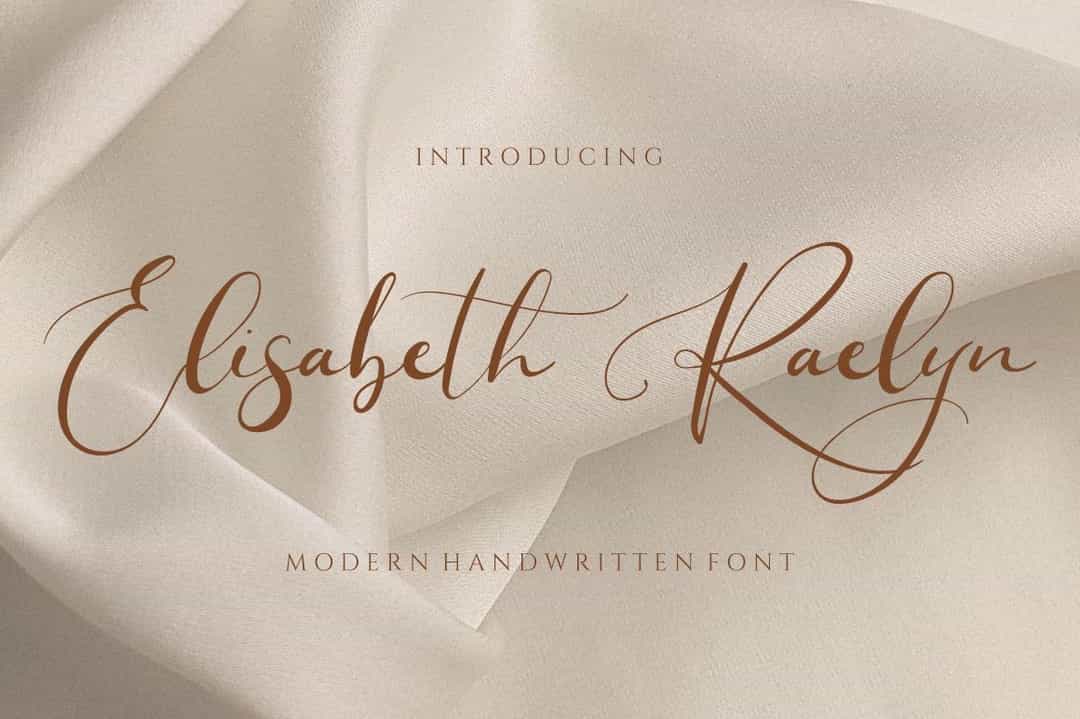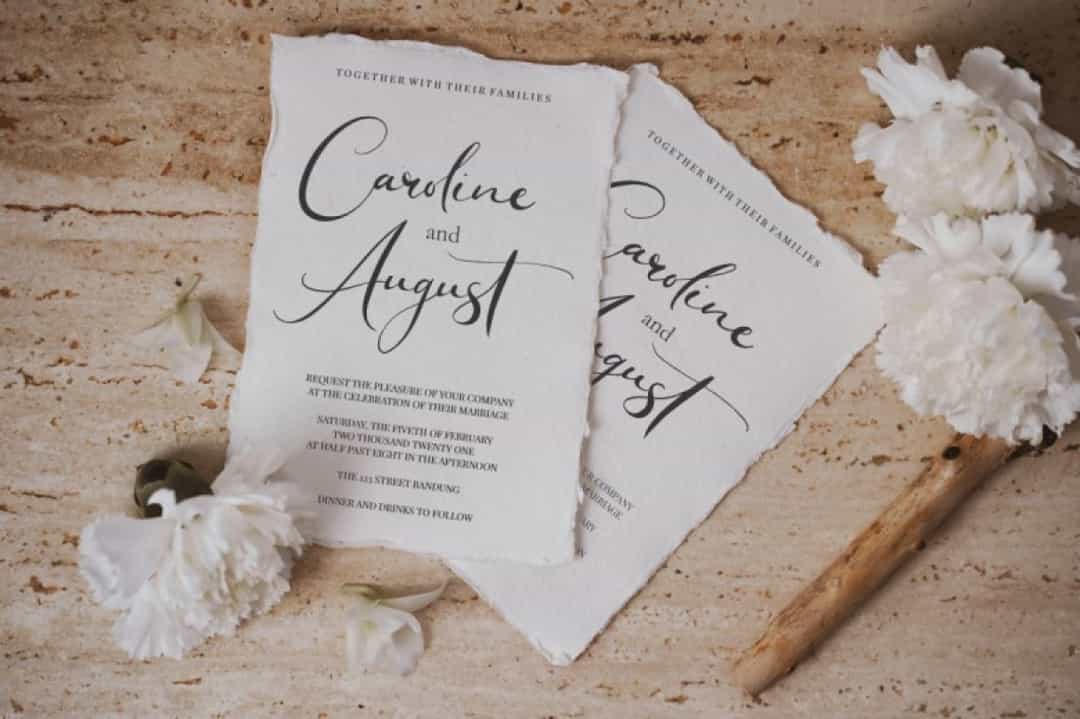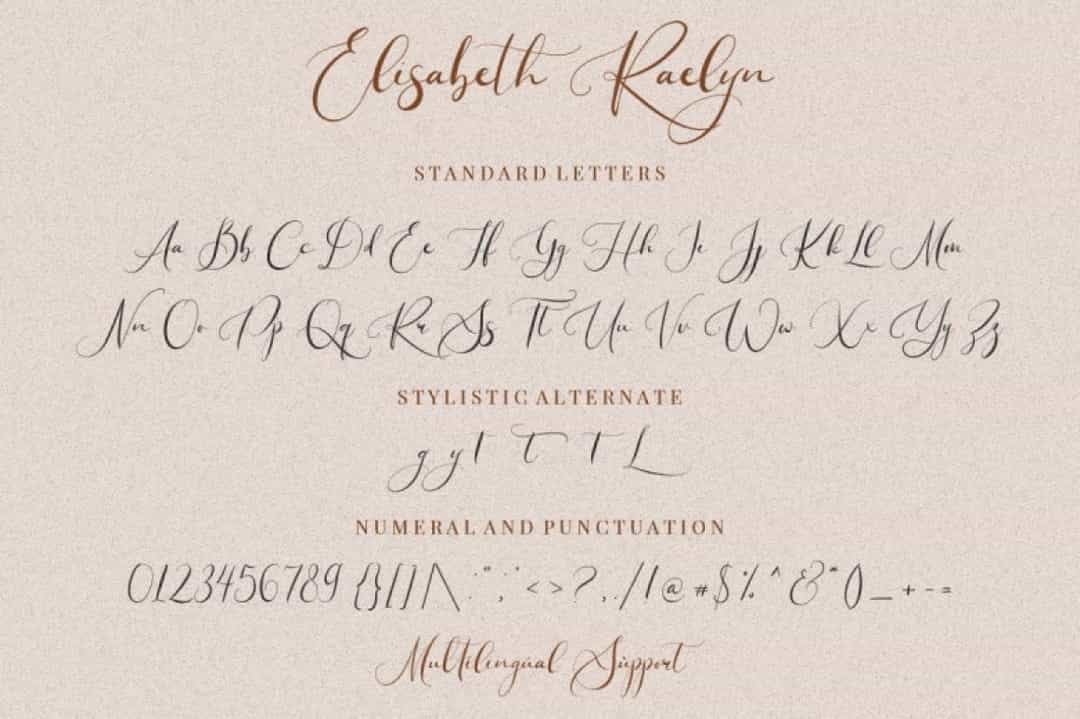
Elisabeth Raelyn is an incredible handwritten script type with a light, natural feel, striking features and distinct personality that adds luxurious energy to any design project you may undertake. PUA encoded for easier accessing all its amazing glyphs and ligatures!